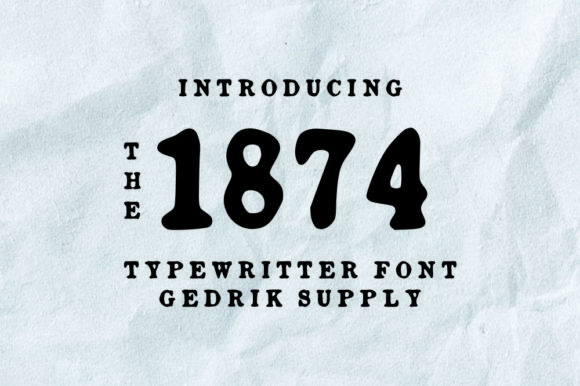
The Ultimate Guide to 1874 Font: A Vintage Masterpiece
Have you ever been in the middle of a design project, and suddenly, you’re stuck on finding the perfect font? I recall a particularly frustrating experience while working on a vintage-themed poster for a client. The design was almost complete, but the font I was using just didn’t have that special something. That’s when I stumbled upon the 1874 Font – a cool, vintage-styled, and incredibly unique display font that instantly elevated my design.
An Honest Review of 1874 Font
So, what makes 1874 Font so special? Let’s dive into the good stuff and, of course, a few quirks I’ve discovered.
- ✨ Unique Vintage Style: 1874 Font boasts an unmistakable vintage charm that’s perfect for creating eye-catching posters, flyers, and prints.
- ✅ High Versatility: Whether you’re designing for digital or print, this font adapts seamlessly, making it a fantastic addition to your font library.
- 💥 Impactful Display: The font’s bold and elegant style ensures your text won’t go unnoticed, adding a professional touch to any design.
While 1874 Font is incredibly versatile, there are a couple of things to keep in mind:
- 🤔 Legibility at Small Sizes: Like many display fonts, 1874 can get a bit tricky to read at smaller sizes. It’s best used for headlines or titles rather than body text.
- ⚠️ Limited OpenType Features: Compared to some modern fonts, 1874 has a more traditional feature set. However, it still offers enough stylistic alternates to keep your designs fresh.
The Backstory of 1874 Font
Imagine a designer, inspired by the typography of the late 19th century, sets out to create a font that embodies the elegance and charm of that era. With meticulous attention to detail, they craft a font that not only pays homage to vintage typography but also feels refreshingly modern. This is the story behind 1874 Font – a labor of love designed to bring a touch of classic sophistication to your designs.
| Author | Lilstuff |
Q: Is 1874 Font suitable for body text?
A: While 1874 Font is stunning as a display font, it’s not ideal for lengthy body text due to its design and potential legibility issues at smaller sizes.
Q: Does 1874 Font include OpenType features?
A: Yes, 1874 Font comes with a range of OpenType features, including stylistic alternates, which can be accessed in compatible software like Adobe Photoshop and Illustrator.
Q: Is 1874 Font easy to read?
A: 1874 Font shines at larger sizes, making it highly readable and impactful for titles and headings. However, its readability decreases at smaller sizes.